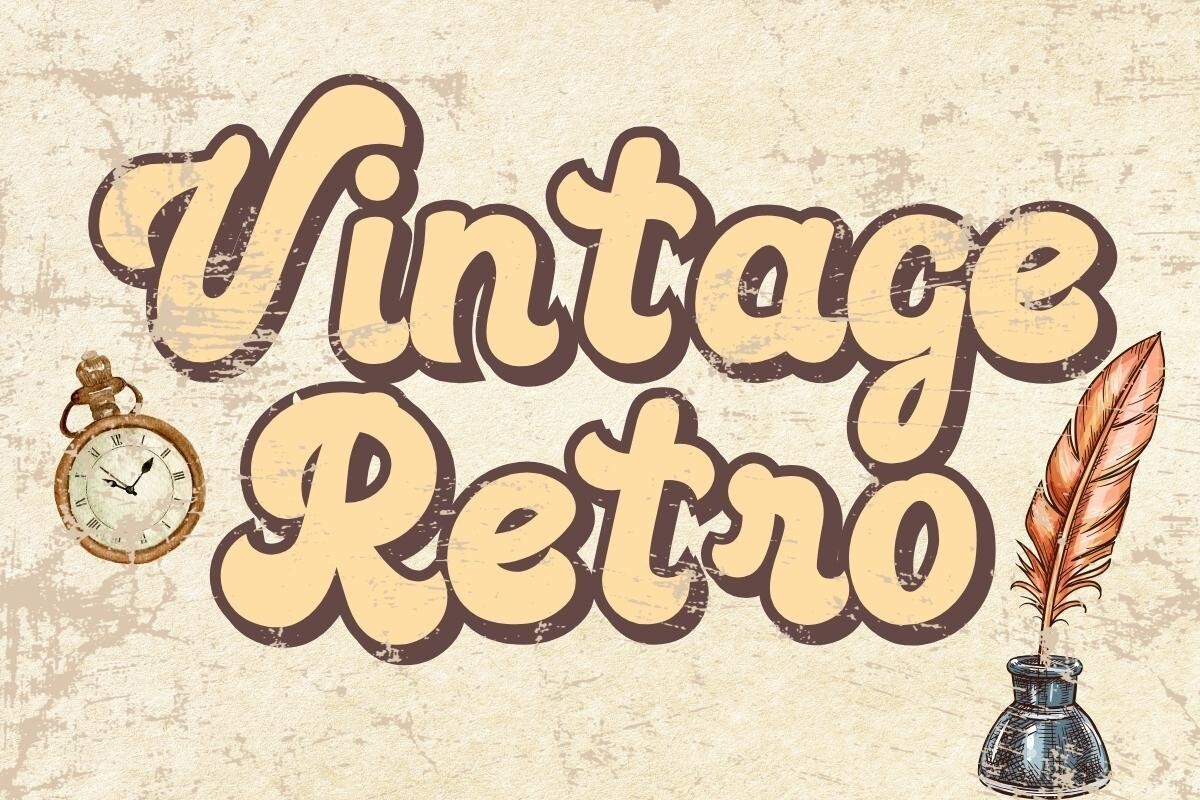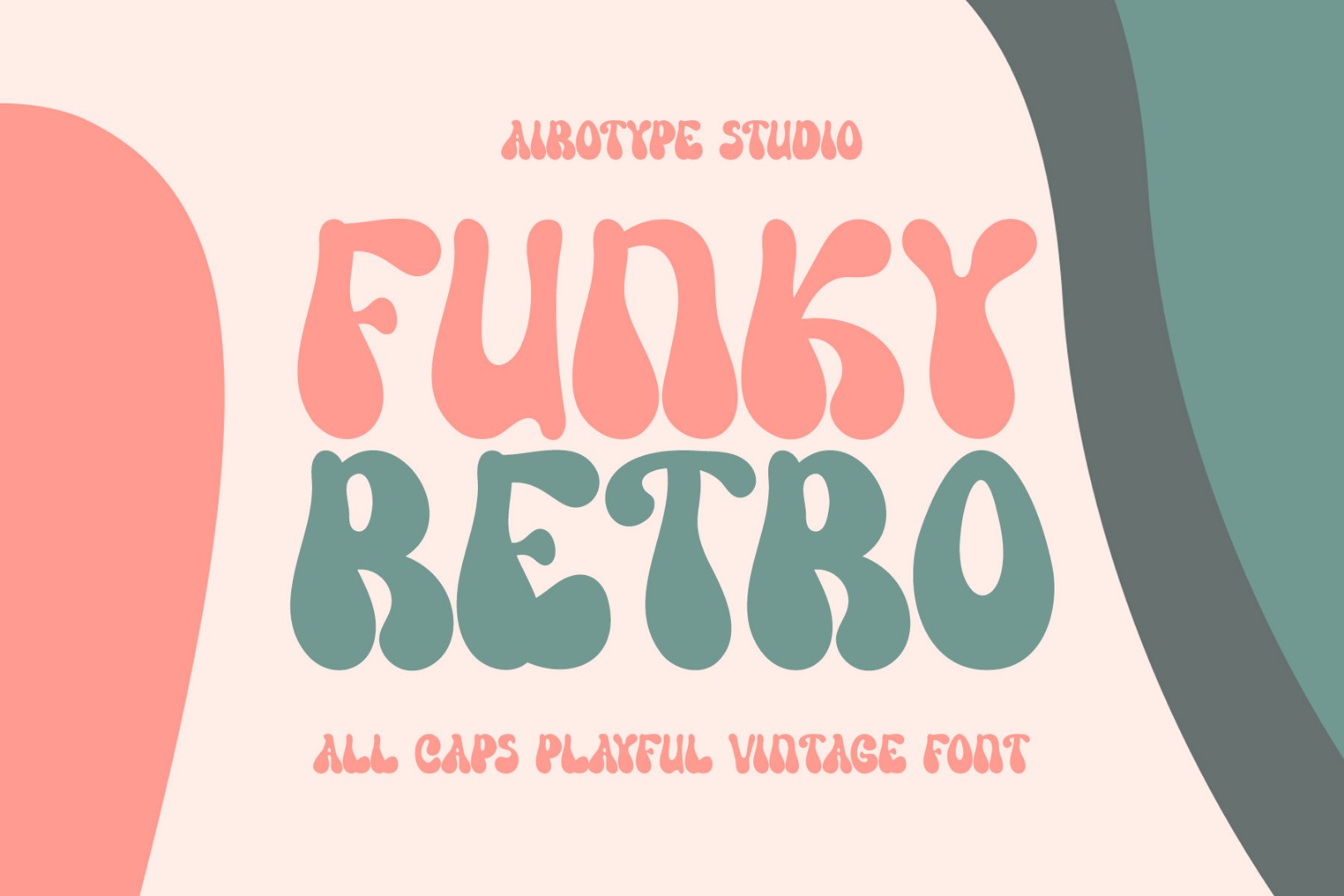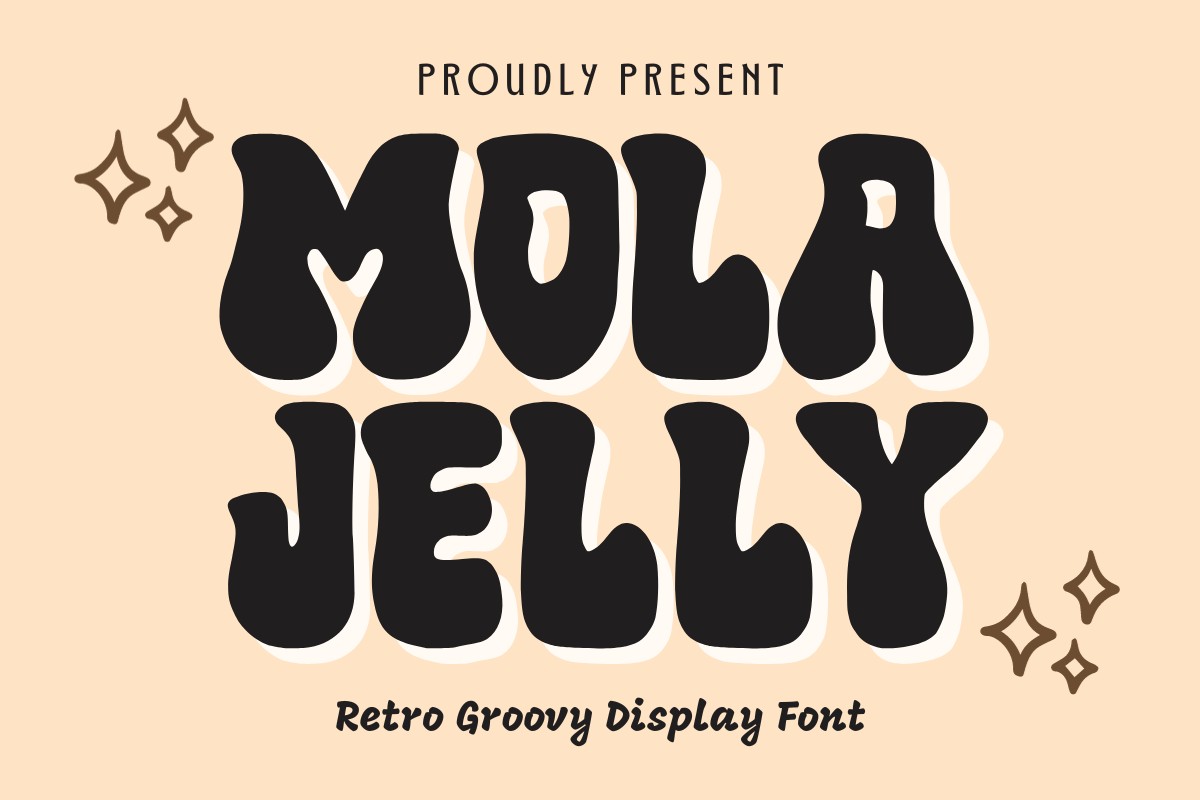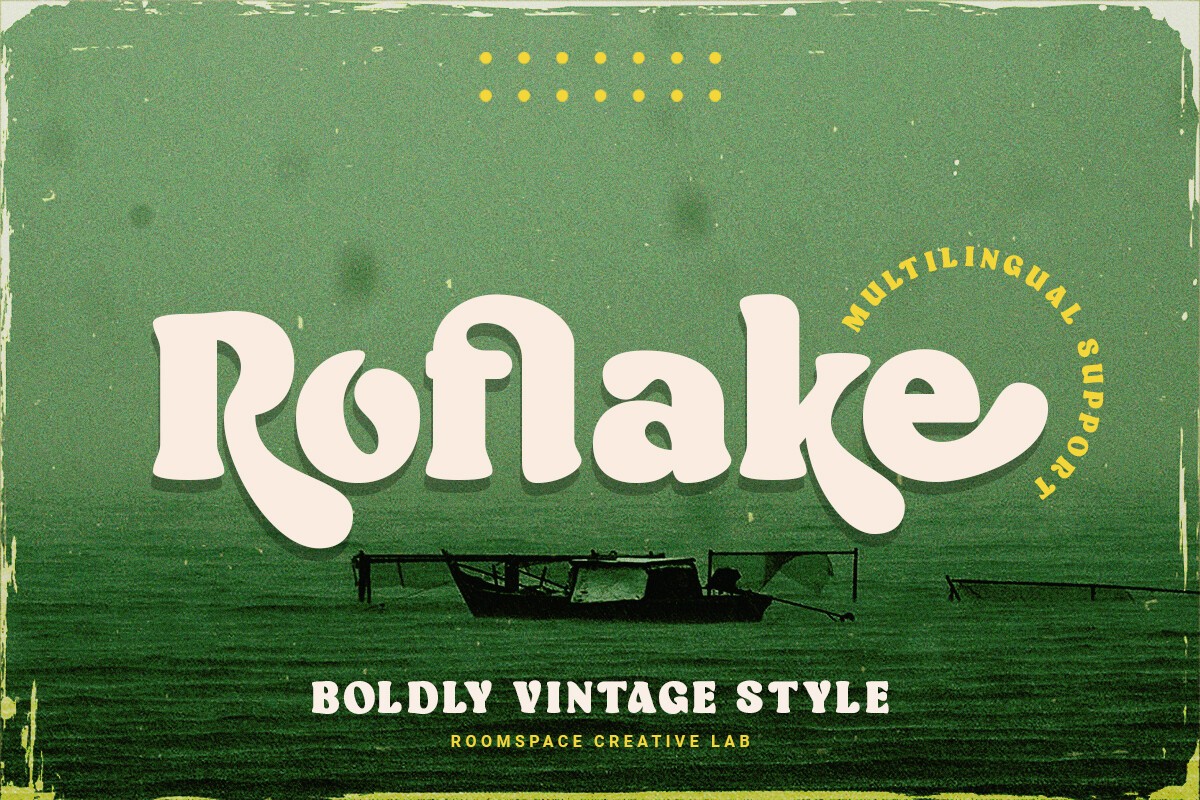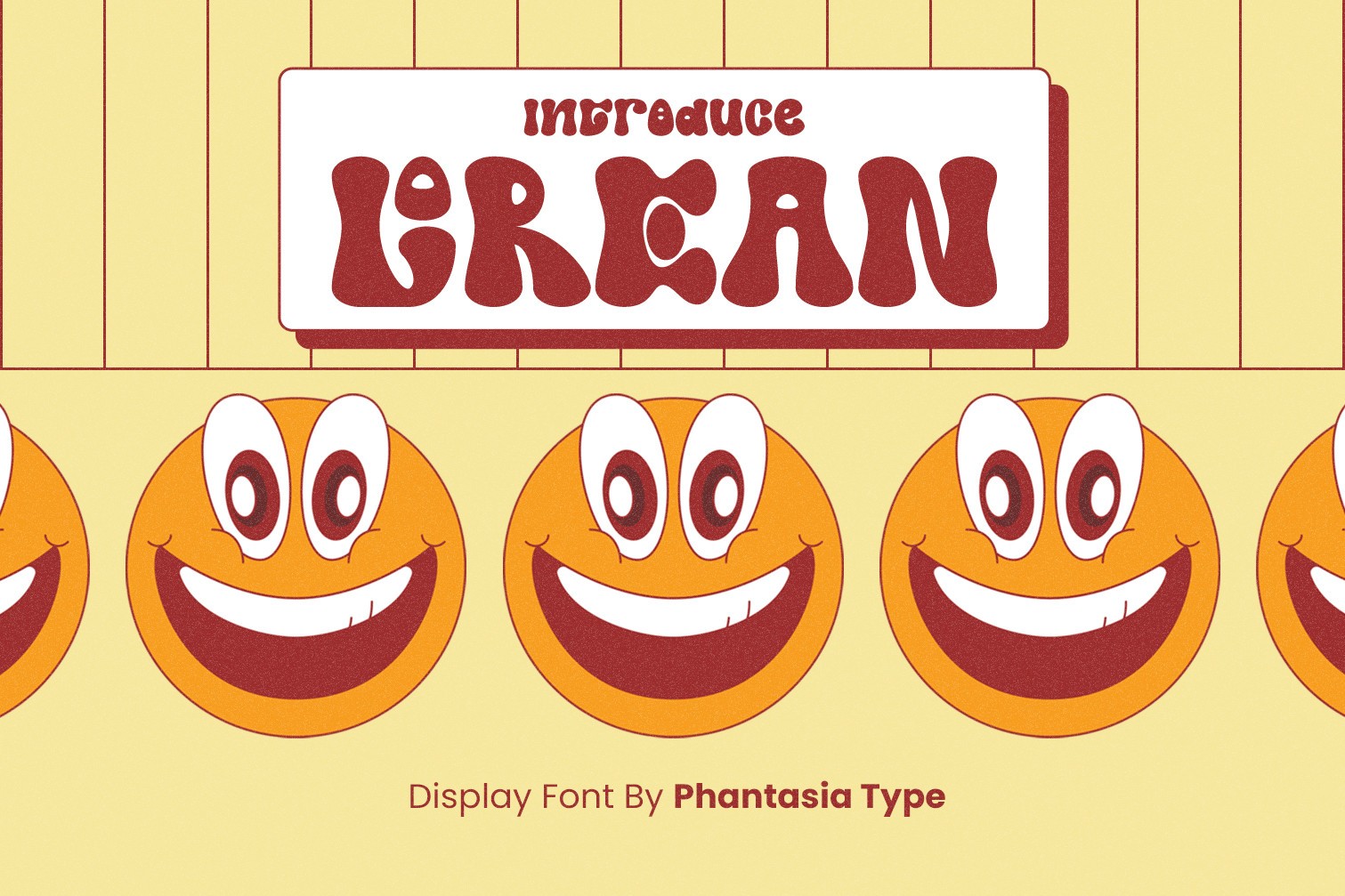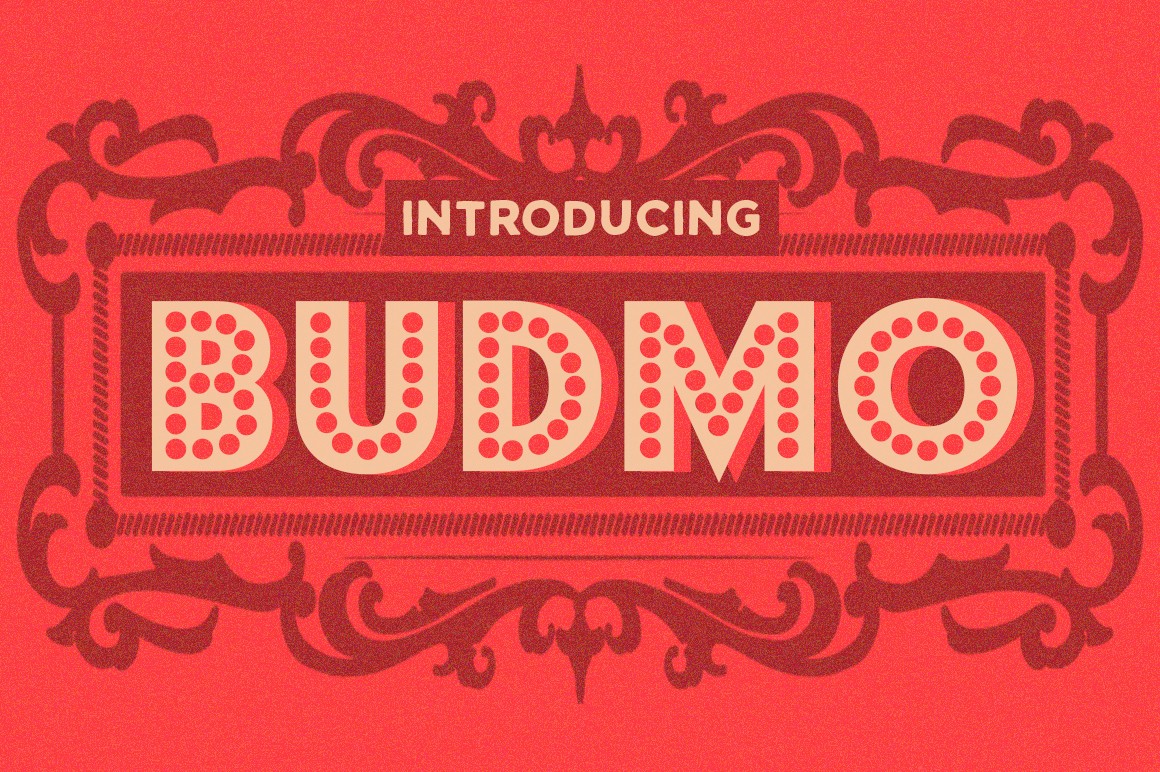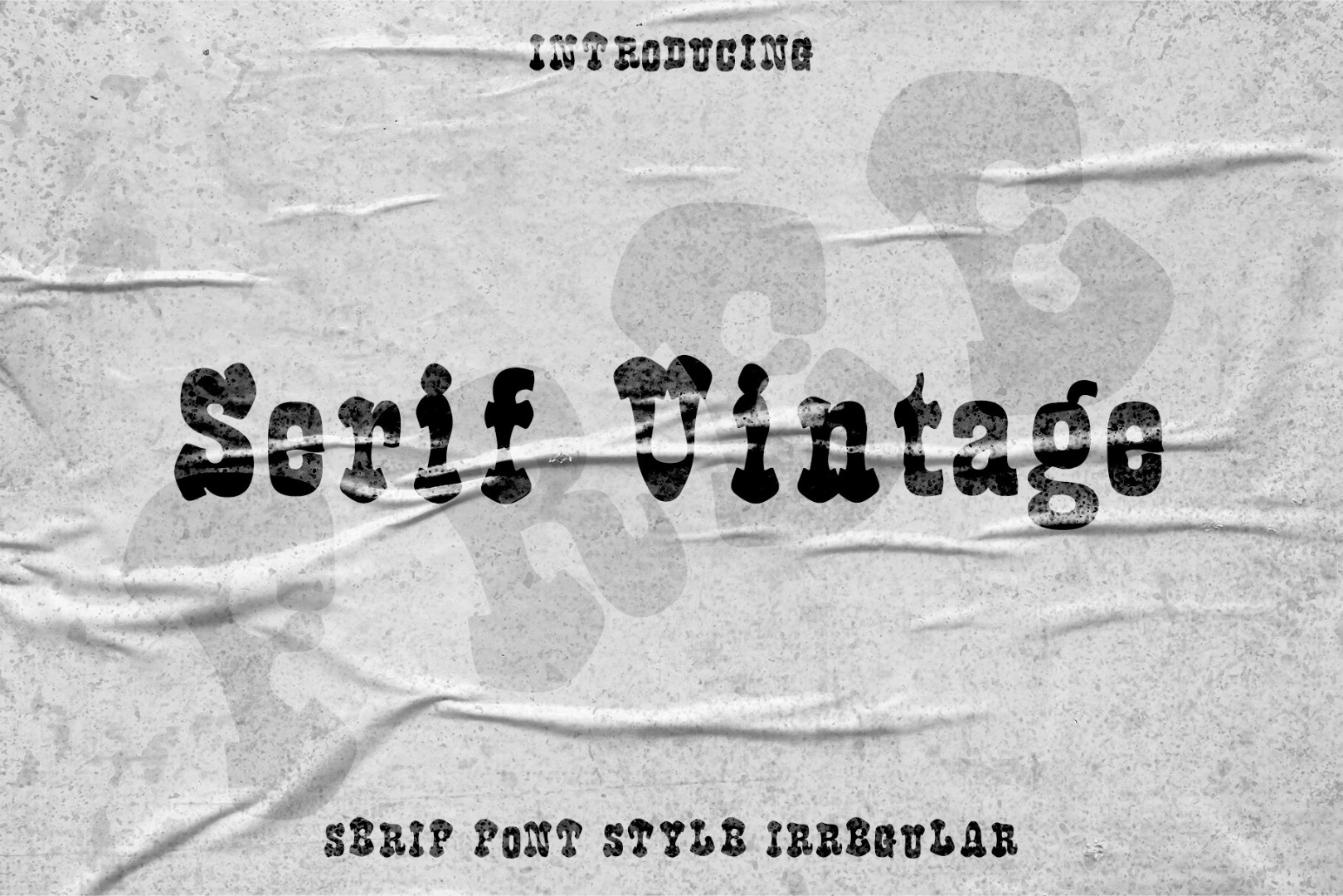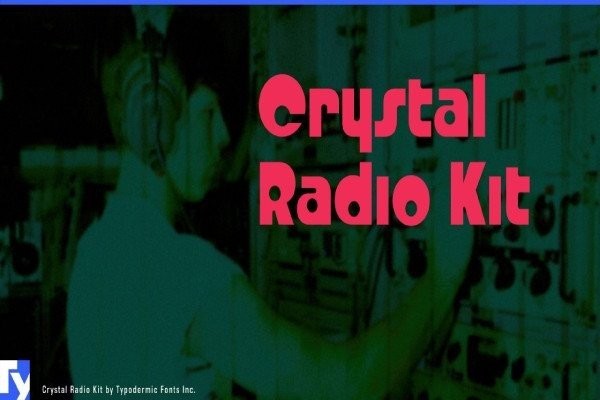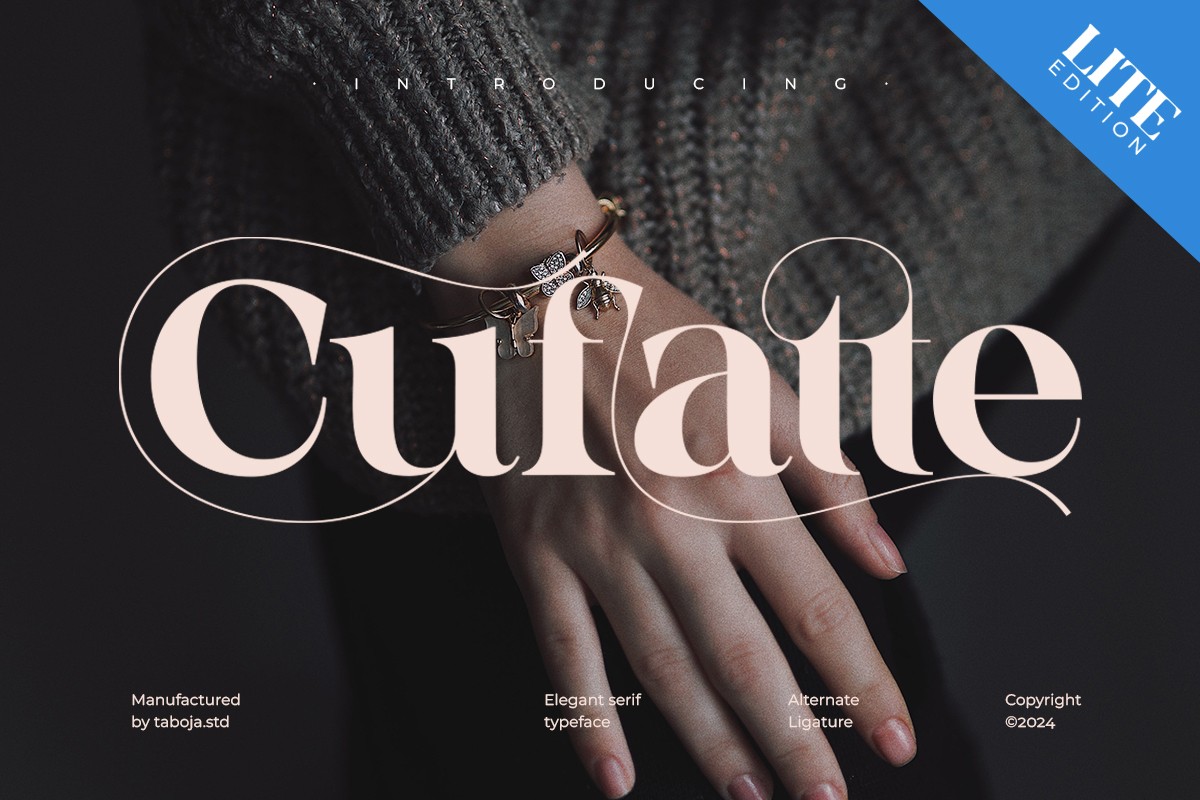
Retro Fonts: Free Font Friday
Step back in time with a collection of free retro fonts that capture the essence of bygone eras. Perfect for adding a nostalgic flair to your designs, these fonts bring the charm and character of vintage typography into the digital age. Whether you're working on a poster, logo, or any creative project, these fonts offer a unique blend of old-school aesthetics and modern versatility. Dive into the world of retro design, where each typeface tells its own story, and let these fonts inspire your next creation.
Vintage Retro
The Vintage Retro font is a masterclass in timeless elegance, effortlessly transporting us to a bygone era with its captivating charm. This beautiful script exudes an air of refinement and sophistication, its delicate curves and flourishes conjuring images of vintage love letters and antique treasures. As we gaze upon its familiar lines, the boundaries of time and place seem to blur, inviting us to step into a world where simplicity and poise reign supreme. With its subtle flair for drama and understated charm, Vintage Retro font is a treasured gem that will forever hold our imagination captive.
Funky Retro
Get ready to groove with Funky Retro, an all-caps vintage display font that exudes a bold and playful vibe. This sweet and dynamic font is reminiscent of the funky times from decades past, but with a modern twist. Its bold style makes it perfect for adding a touch of retro flair to any project, whether you're looking to create logos, crafts, posters, or branding materials. With Funky Retro, you can add a fun and quirky feel to your designs, making it ideal for use in stickers, sublimation prints, and more.
Mola Jelly
Get ready to transport yourself back in time with Mola Jelly, a font that embodies the essence of nostalgia and vintage charm. This display font is perfect for adding a touch of retro flair to any design concept you can imagine. Expertly crafted, Mola Jelly has the power to elevate your creative ideas to new heights, making it a true favorite among designers. With its unique blend of classic and modern elements, this font is sure to bring a sense of warmth and playfulness to any project, making it an absolute must-have for anyone looking to add a dash of retro whimsy to their work.
Roflake
Roflake font is a masterful blend of classic vintage serifs and modern flair, characterized by rounded edges that create a soft, inviting appearance. With strong clarity, this font delivers messages assertively yet retains a gentle charm, making it suitable for a wide range of design projects. The regular version exudes sturdiness and stability, conveying a sense of reliability and trustworthiness. Its clear, easy-to-read letters are elevated by vintage serif details that add an elegant touch, perfect for any project where you want to convey a sense of timelessness and sophistication.
Lorean
Lorean is a playful display font that's sure to bring a dash of fun and whimsy to any design. Inspired by the carefree spirit of the 90s, this cartoon-style font is perfect for projects that need a touch of nostalgia and humor. With its quirky charm and bright personality, Lorean adds a delightful touch to any layout, making it a great choice for festive, funny, or retro-inspired designs. Plus, being PUA encoded means you can easily access all the font's amazing glyphs and ligatures, allowing you to get creative with your typography.
Spooky Grinch
Spooky Grinch is the perfect font to conjure up the essence of Halloween. This uniquely vintage-style font effortlessly blends retro and groovy design aesthetics, emitting subtly eerie undertones that signal the arrival of the spooky season. Whether you're looking to add a dash of opulence to custom creations like t-shirts, tote bags, or hats, or enhance the charm of logos and boost your brand's charisma, Spooky Grinch is the perfect choice. Its versatility also makes it ideal for Halloween greeting cards, defining your social media presence, or accessorizing other elements with a touch of spooky style.
Budmo
Budmo is a unique font that captures the essence of vintage signage. Its dotted and marquee design gives it a distinctive, retro flair. You can use Budmo's Jiggler or Jigglish styles on their own for a bold statement, or layer them to create visually striking displays with an authentic, nostalgic feel. Whether you're looking to add a touch of old-school charm to your website or promotional materials, Budmo is the perfect font to transport you back in time.
Serif Vintage
Serif Vintage is a one-of-a-kind font that brings a dash of individuality to any design project. Its irregular shape and light strokes create a visually striking effect that's sure to grab attention. With its unique letter forms, this font adds an air of sophistication and elegance to any layout, making it perfect for projects where you want to make a lasting impression. Whether you're looking to add some vintage charm or simply stand out from the crowd, Serif Vintage is the ideal choice to bring your design to life.
Crystal Radio Kit
Meet Crystal Radio Kit, a bold and captivating display font that draws inspiration from the iconic typography of the legendary Radio Shack logo. This charming font boasts a unique blend of curves and angular lines, giving it an unmistakable retro flair. Perfectly suited for products seeking to radiate a sense of nostalgia or sophistication, Crystal Radio Kit is sure to add a touch of golden glamour to any design. Whether you're looking to evoke the spirit of analog electronics or simply want to make a statement, this font is the perfect choice for bringing a dash of vintage charm to your project.